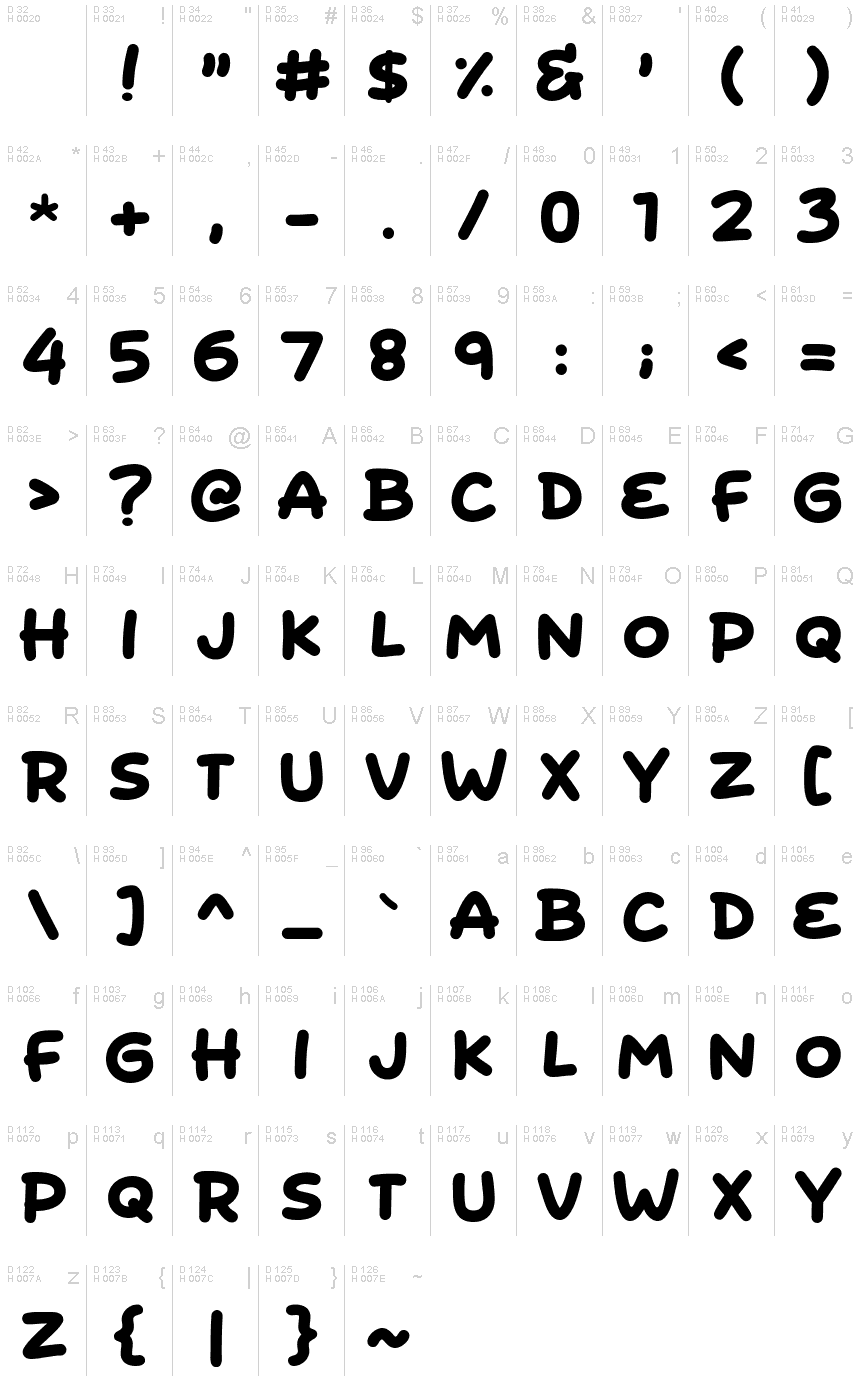
Fried Duck
Fried Duck, a bold and semi-expanded display font crafted by Khurasan, adds a playful touch to any project.
Its cartoon-like style makes it perfect for children's books, creating eye-catching logos, or designing vibrant packaging. With its bold weight and semi-expanded width, Fried Duck demands attention while maintaining legibility. Whether you're working on a whimsical website or a fun-filled poster, this font will bring your designs to life with its energetic and dynamic personality.
Let Fried Duck take your creative ventures to new heights!